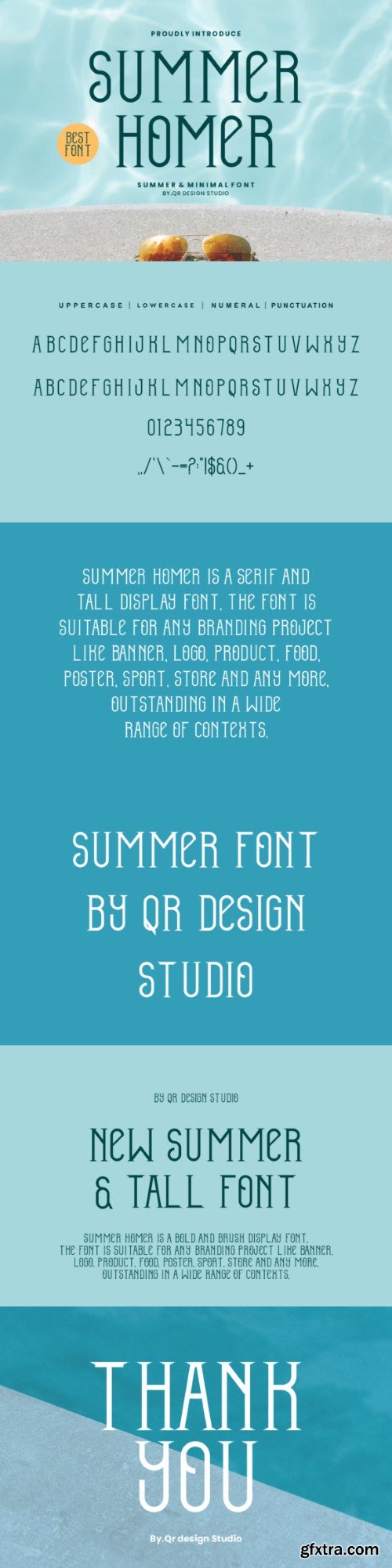
夏日霍默字体
Summer Homer is a thin display font that embodies modern simplicity with elegance. Its crisp lines and slim letterforms provide a smooth, modern look. Perfect for projects that require delicacy and precision, Summer Homer adds a muted elegance to your designs, guaranteeing a polished and classic appeal.